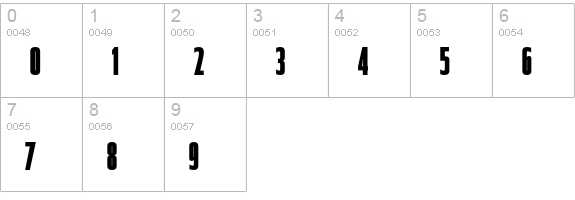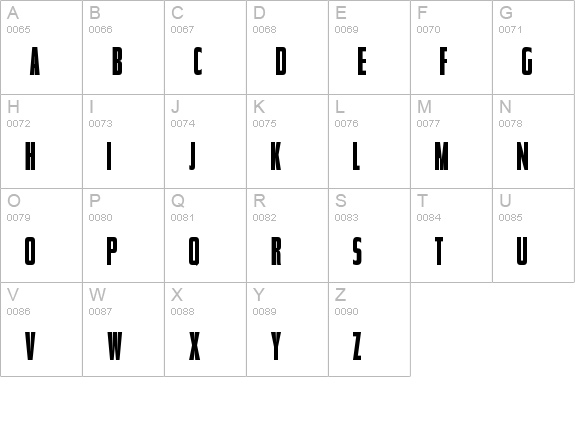
Tasse Black Comp is a maximum-weight, dramatic variant in the Tasse typeface family \xE2\x80\x94 well suited to maximum-impact headlines, posters, and packaging.
Tasse Black Comp is a striking and bold font that exudes confidence and sophistication. Its sleek and sharp lines make it perfect for creating impactful headlines, logos, and branding materials. With its strong presence and commanding nature, Tasse Black Comp demands attention and leaves a lasting impression. This font is not only visually captivating, but it is also versatile and adaptable to various design projects. Whether you want to add a touch of elegance to a website, create eye-catching posters, or design sleek business cards, Tasse Black Comp is the ideal choice. What makes Tasse Black Comp even more appealing is that it is available for free download at FontsMarket.com. This means that designers and creatives can enjoy the benefits of this stunning font without any cost. By making Tasse Black Comp freely accessible, it encourages creativity and empowers individuals to express themselves through their design projects. FontsMarket.com is a trusted source for high-quality fonts, offering a vast array of options for designers to explore. With its user-friendly interface and extensive font library, designers can easily find and download the perfect font for their projects. Tasse Black Comp is just one example of the many exceptional fonts available on FontsMarket.com. In conclusion, Tasse Black Comp is a remarkable font that combines boldness, elegance, and versatility. Its free availability to download at FontsMarket.com makes it an excellent choice for designers seeking to create impactful and visually stunning designs. Explore the world of Tasse Black Comp and let your creativity soar.